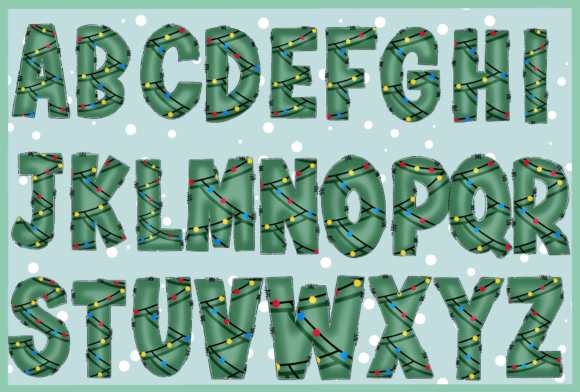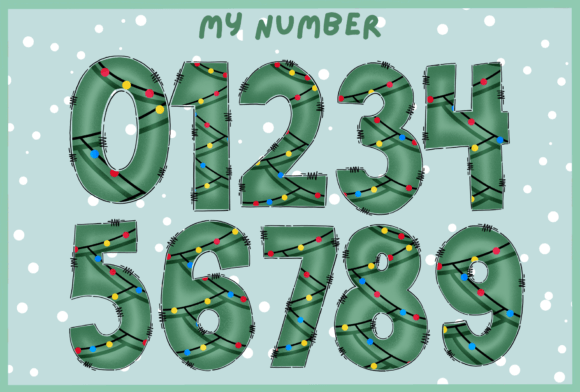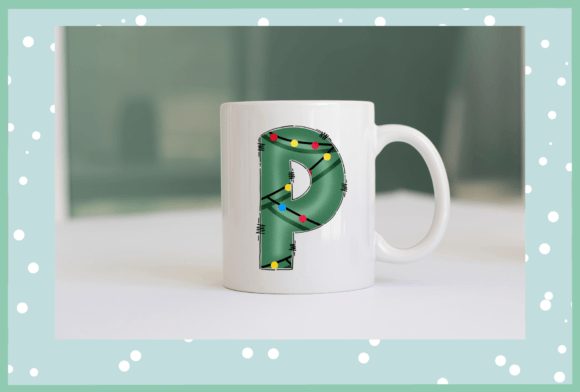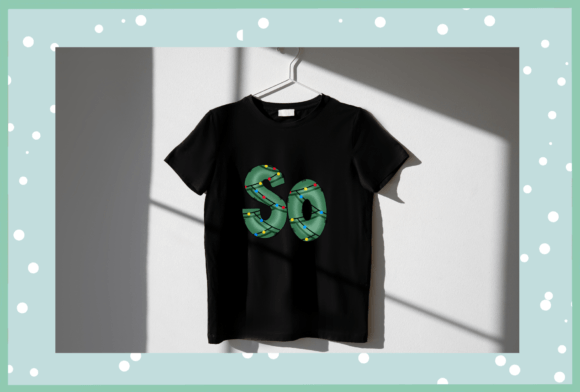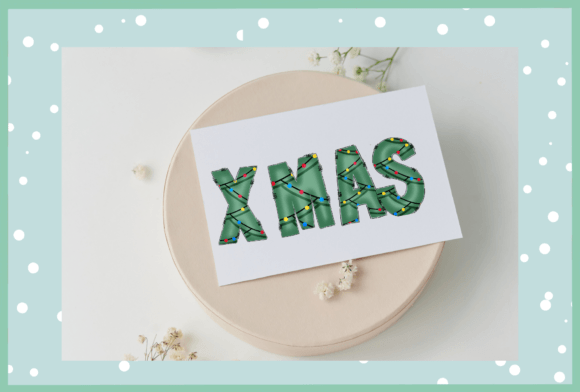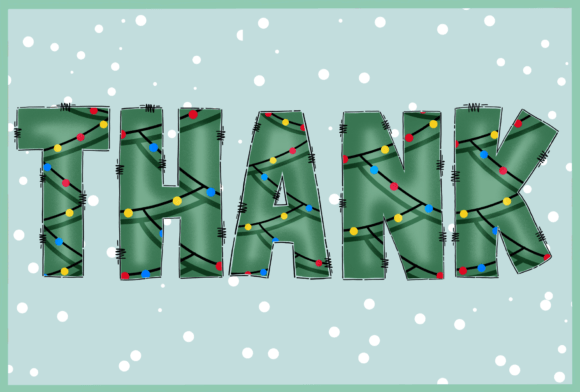
The Magic of Handwritten Fonts: Unwrapping the Joy of Christmas Color Green Font
As the holiday season approaches, I find myself rummaging through my stash of festive decorations, searching for that perfect combination of sparkle and cheer. But it’s not just the ornaments and garlands that bring me joy – it’s the little details, like a handwritten note in a beautiful font, that truly make Christmas special. And speaking of beautiful fonts, have you discovered the enchanting Christmas Color Green Font?
This delightful handwriting font is a treasure trove for designers, educators, and anyone looking to add a touch of whimsy to their work. With its simple yet charming style, Christmas Color Green Font is perfect for teaching, decorating presentations, and even advertising. Its versatility makes it a valuable asset for any creative project, and its black version is compatible with popular cutting machines like Cricut Design Space. Whether you’re a seasoned pro or a beginner, this font is sure to bring a smile to your face and a touch of magic to your designs.
Christmas Color Green Font Key Features
- Unique Characteristics: The font features a festive, green color scheme with intricate holiday designs, making it perfect for Christmas-themed projects.
- Font Style: A combination of bold and regular styles, allowing designers to choose the perfect look for their project.
Christmas Color Green Font Review
Overall, I found the Christmas Color Green Font to be a solid addition to any holiday design project. ✨ The font’s vibrant green color immediately evokes the festive spirit, making it perfect for Christmas-themed materials, websites, or social media campaigns. The font is highly legible and comes in a range of weights, allowing designers to choose the right style for their project.
- ✨ Highly legible font style
- ✨ Vibrant green color that screams Christmas
- ✨ Available in various weights
However, I did encounter some limitations with this font. ⚠️ For one, it’s a bit too “on-the-nose” for more subtle holiday designs. Additionally, the font may not be suitable for projects that require a more serious tone. Lastly, I found the font to be somewhat limited in its customization options, which may be a drawback for designers looking for more flexibility.
- ⚠️ May be too obvious for more subtle holiday designs
- ⚠️ Limited customization options
- ⚠️ May not be suitable for serious tone projects
Overall, I would recommend the Christmas Color Green Font for designers working on festive holiday projects. While it has some limitations, its vibrant color and legible style make it a great choice for getting into the holiday spirit.
Use the Christmas Color Green Font to add a festive touch to your designs. Pair it with red or gold accents to create a cohesive holiday look.
The Christmas Color Green Font is perfect for holiday marketing materials, social media graphics, and festive invitations.